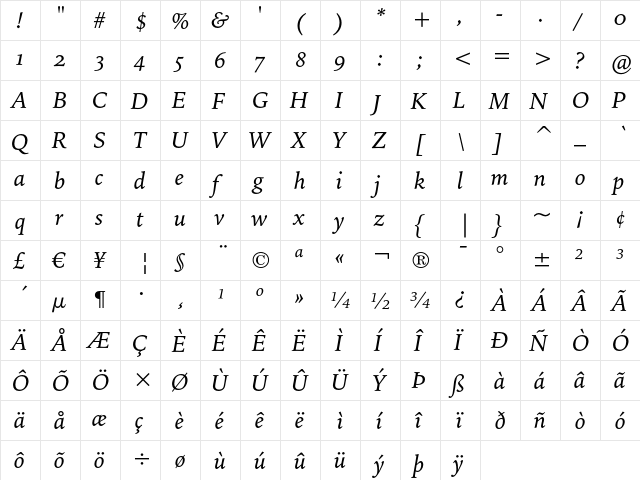
Bitstream Iowan Old Style Italic OSF
Design Context for Bitstream Iowan Old Style Typeface
Bitstream Iowan Old Style is a composed and adaptable typeface that performs quietly and consistently across a wide range of design contexts. Its italic angle brings a sense of urgency and motion to the letterforms.